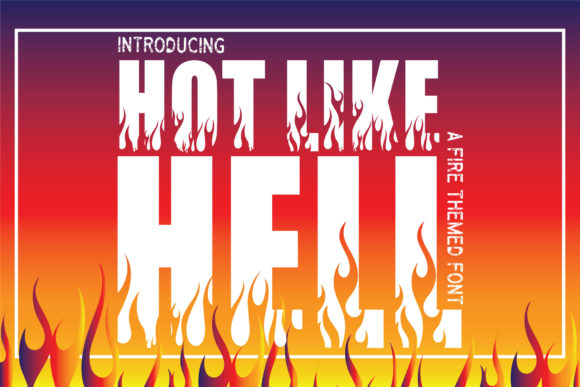
Looking to add a touch of fiery excitement to your designs? Look no further than Hot Like Hell Font! This bold and incredibly fun decorative font is the perfect choice for those seeking a captivating and edgy style. Whether you're designing posters, flyers, or creating anything that needs a wow-factor, Hot Like Hell Font will surely make your creations stand out from the crowd.
With its eye-catching and unique design, Hot Like Hell Font is guaranteed to grab attention and leave a lasting impression. Its bold and daring appearance will ignite the imagination and evoke a sense of excitement in your audience. Let your designs speak volumes and express your creativity with this powerful font.
Created by KtwoP, a renowned font designer, Hot Like Hell Font is the epitome of style and innovation. Its carefully crafted details and intricate strokes make it a true masterpiece in the world of decorative fonts. Each letter is infused with a fiery energy that will instantly captivate your viewers and convey your message with passion.
Whether you're designing Christmas cards, party invitations, or promotional materials, Hot Like Hell Font is the ultimate choice. Its versatility allows it to adapt to any occasion, making it the best font for Christmas cards. Spread the holiday cheer with a font that exudes warmth and excitement.
Hot Like Hell Font opens up a world of endless possibilities for your designs. Let your imagination run wild and explore the limitless potential this font has to offer. Its vibrant and energetic personality will breathe life into your creations and make them truly unforgettable. Get ready to take your designs to the next level and leave a lasting impression on your audience.
In conclusion, Hot Like Hell Font is the go-to choice for anyone looking to add a fiery and edgy touch to their designs. Its bold and captivating style, combined with its versatility, make it a must-have font for any creative project. Don't miss out on the opportunity to make a statement and create designs that leave a lasting impression. Download Hot Like Hell Font today and unleash your creativity!